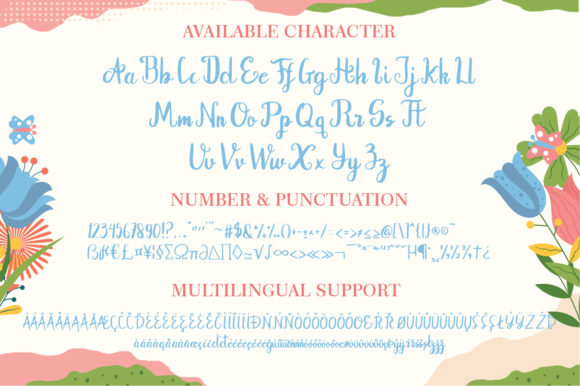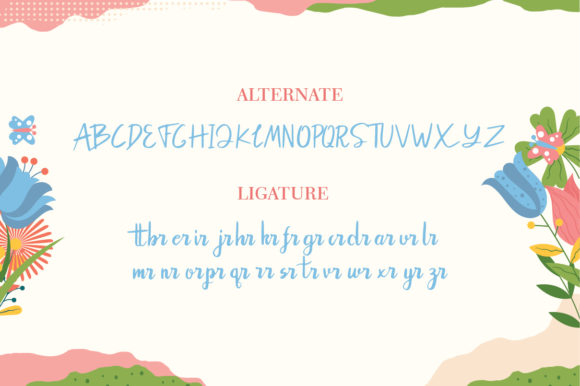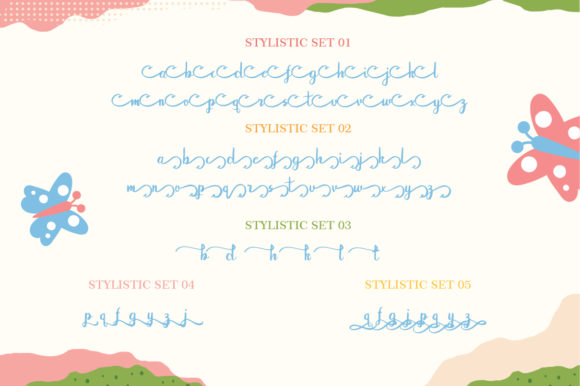
Introduction to Regola Font
Regola is a sweet, soft hand-lettered handwritten font.
It’s perfect for invitations, stationery, wedding designs, social media posts, advertising, product packaging, quotes and much more .
Regola Font offers exceptional quality and versatility, making it a valuable addition to your design toolkit. Whether you’re creating for personal projects or commercial use, Regola Font delivers professional results.